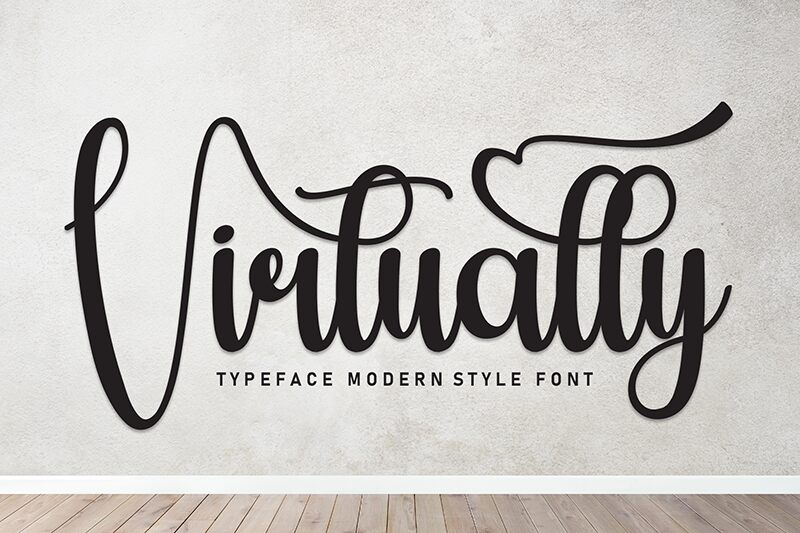
Virtually
Virtually font by Andi Moz is an elegant, flowing, and expressive free calligraphy font that embodies a modern script appeal. Embracing an artistic flair, it offers an inviting presence suitable for various creative applications. Each curve and line of this flowing typeface projects elegance and class without losing sight of individuality, making your texts special.
Its legibility makes it ideal for brand design (logos/packaging), printed media (posters/flyers/brochures), publishing (book/magazine/newspaper covers), advertising, headlines/titles in apps/web pages/social media/jobs boards/sites, quotes/printed inspirational messages/store signs.